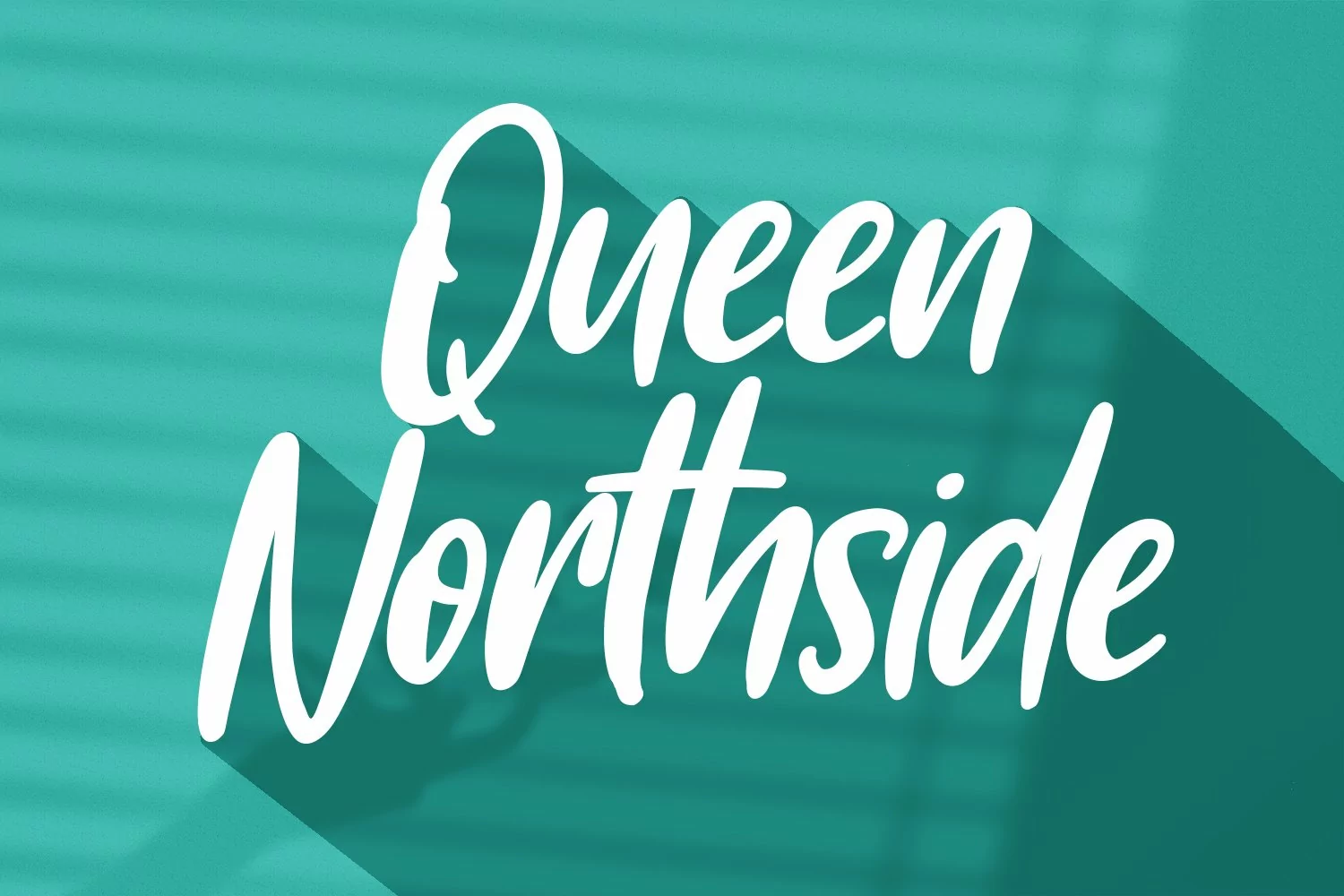
Supergravity is a casual hand-written font. With regular contrast stroke, slant and fun character with some of ligatures. To give you an extra creative work. Supergravity font support multilingual more than 100+ language. This font is good for logo design, Social media, Movie Titles, Books Titles, a short text even a long text letter and good for your secondary text font with sans or serif. Make a stunning work with Supergravity font.